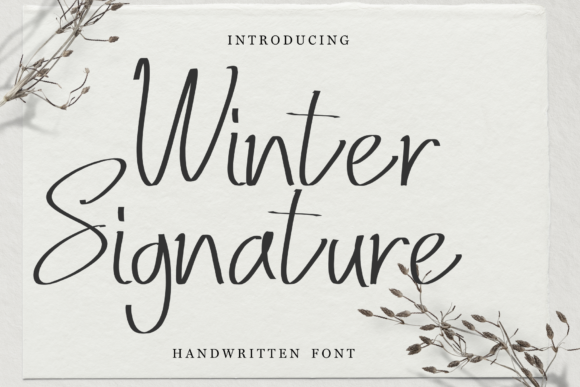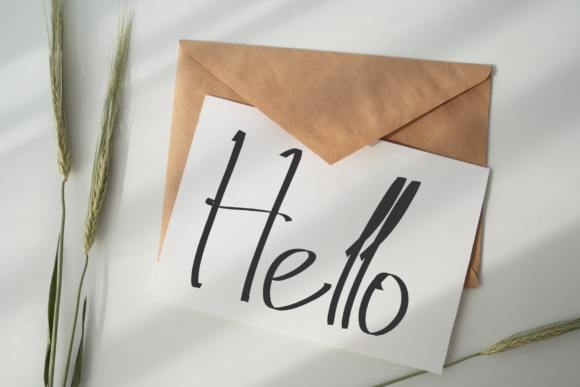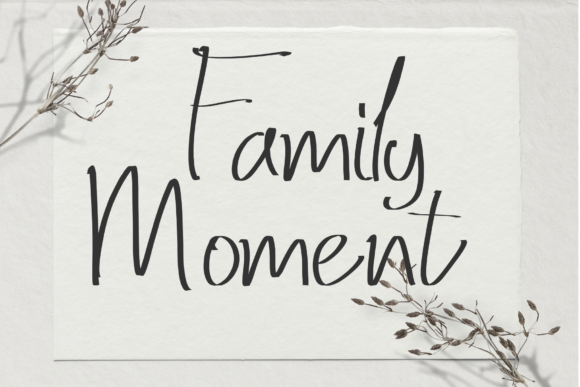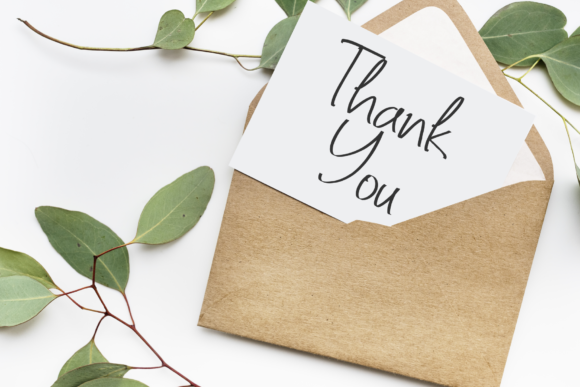
About Winter Signature Font
Winter Signature is a unique and elegant handwritten font. It looks beautiful on a variety of designs requiring a personalized style, such as wedding invitations, thank you cards, weddings, greeting cards, logos and so on.